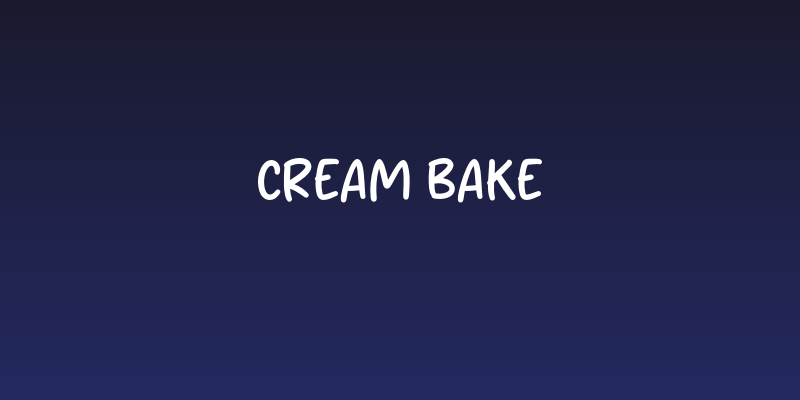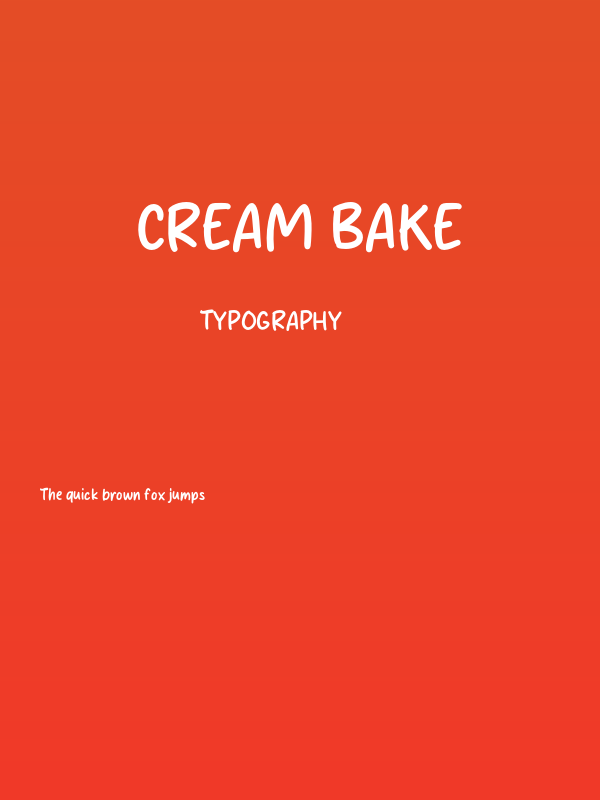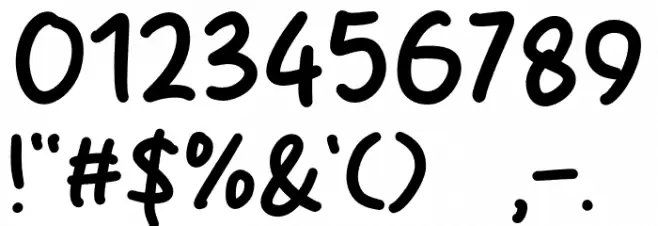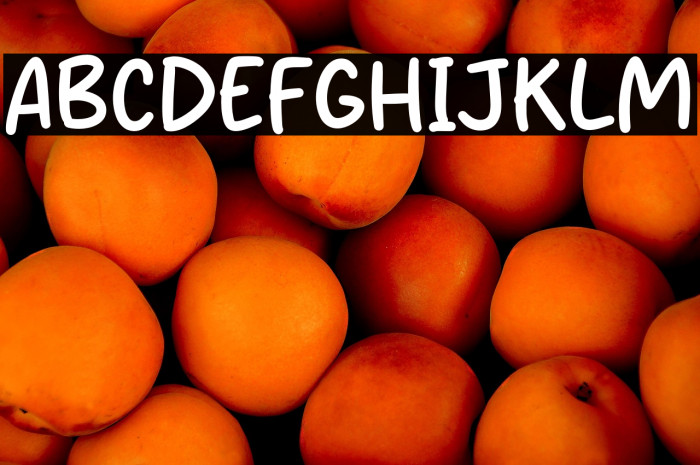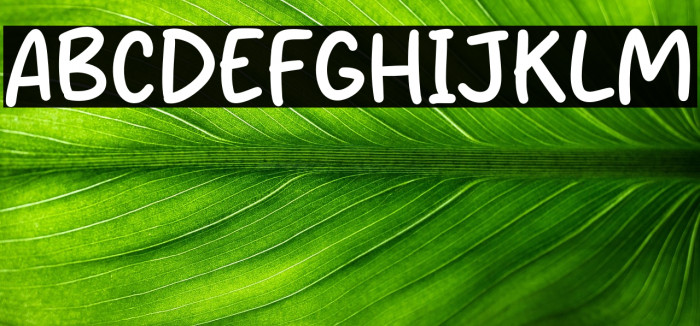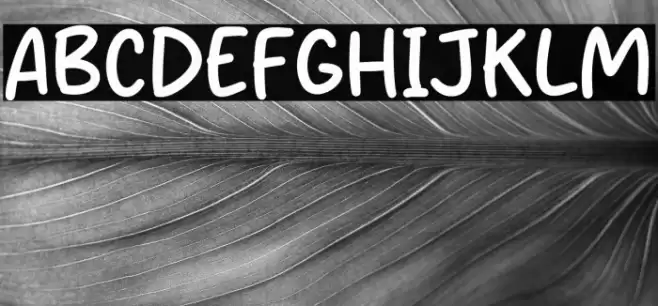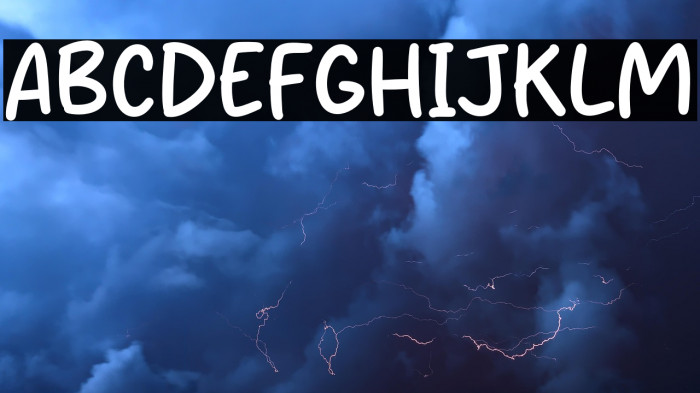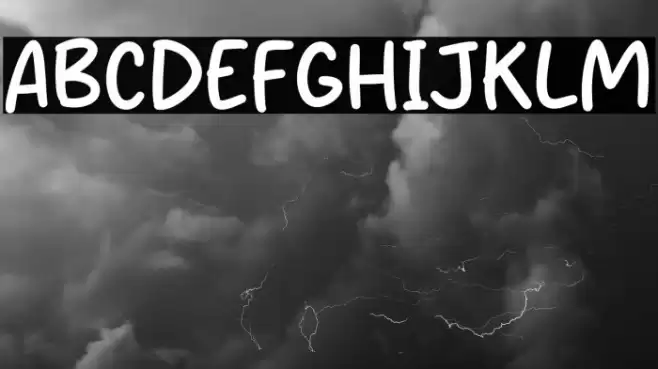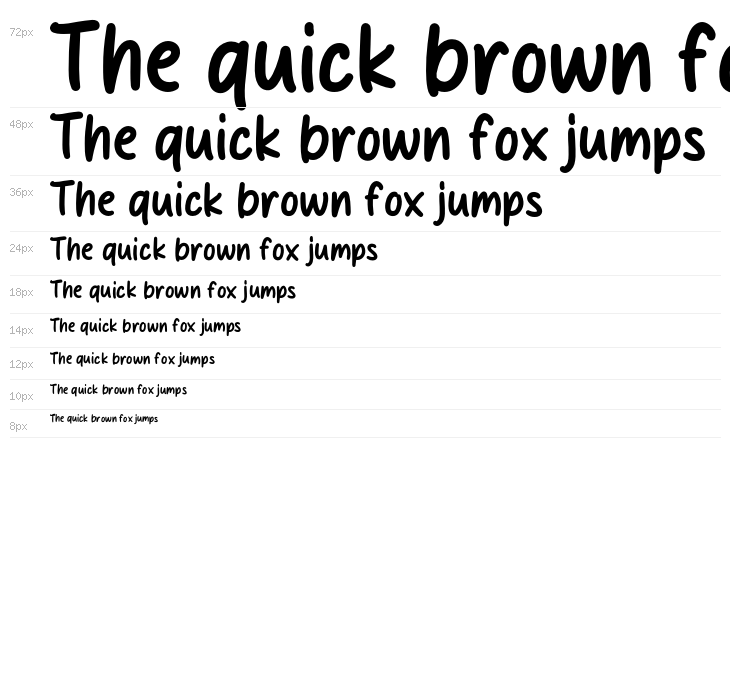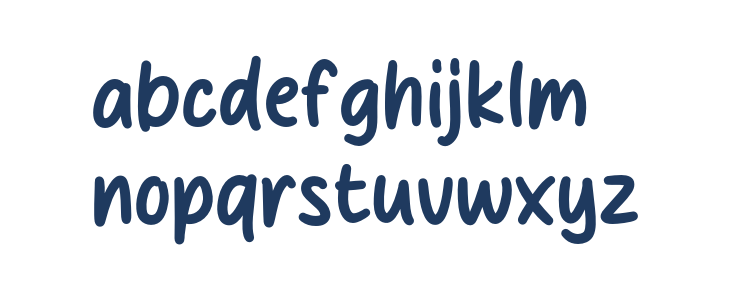
Cream Bake Font
Cream Bake Description
This font features a playful and informal handwritten style, characterized by rounded edges and a slightly uneven baseline that adds a touch of whimsy. The letters are bold and have a consistent stroke width, which enhances readability while maintaining a casual appearance. The font includes both uppercase and lowercase letters, numbers, and a variety of special characters, making it versatile for different design needs. Its friendly and approachable look makes it ideal for projects that require a personal touch.
| Proposed Projects | Ideal for greeting cards, children's books, playful branding, and social media graphics. |